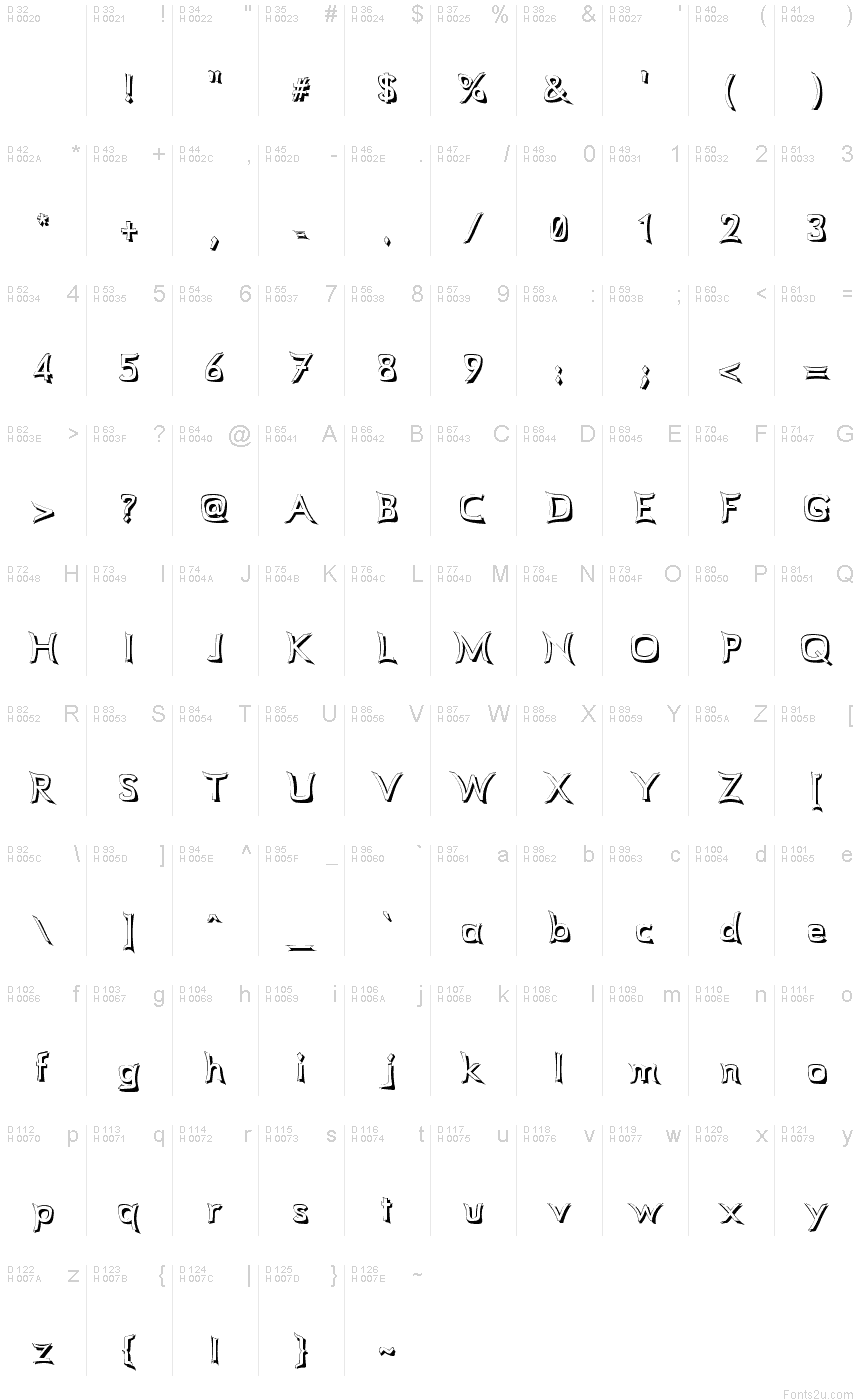
Comicbook Smash
Comicbook Smash font by GÎmFonts98 is a free comic shadow display typeface that shouts straight off the page. Its tall, wavy letters and bold black shadow feel like they’ve been inked by hand, with a slightly twisted, mischievous energy. The white inner strokes keep things light and airy, while the chunky outline adds a punchy, almost 3D pop that reads clearly even at a glance.
Using Comicbook Smash, you can give instant personality to comic covers, zine titles, game splash screens, Halloween posters, kids’ event flyers, and bold YouTube thumbnails. This free font thrives in big, loud headlines where you want drama and fun in the same breath. For balance, pair it with a clean, neutral sans-serif for body text and let Comicbook Smash handle the noisy, attention-grabbing moments.